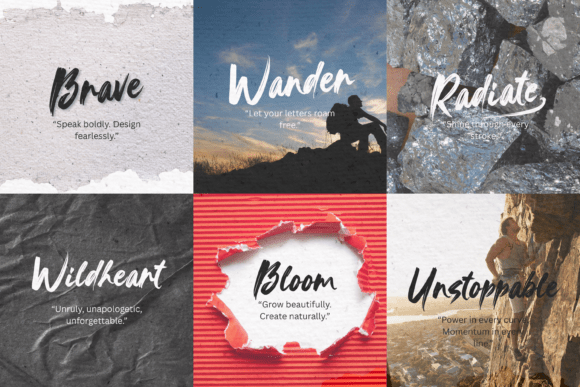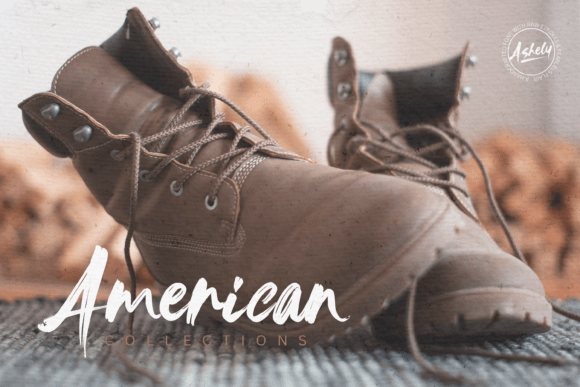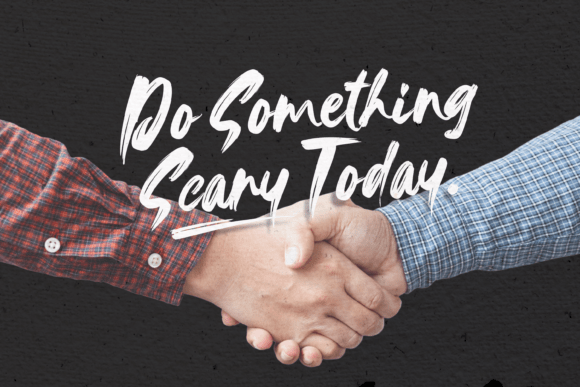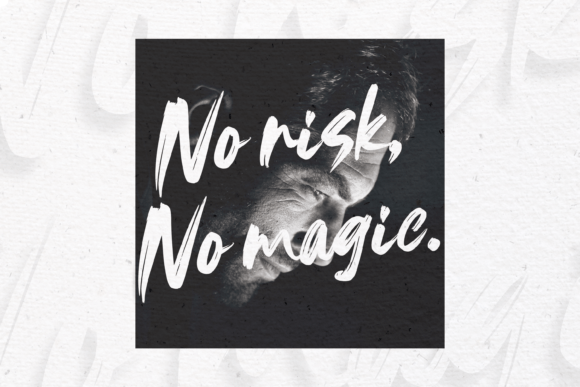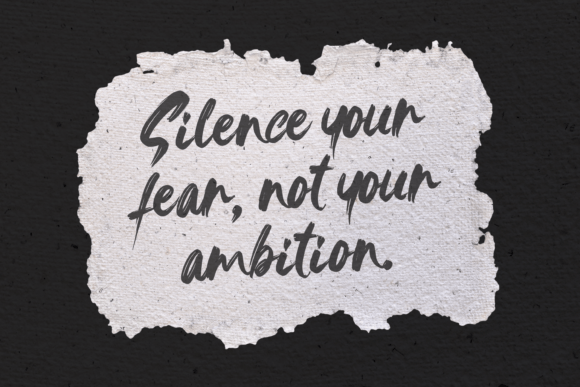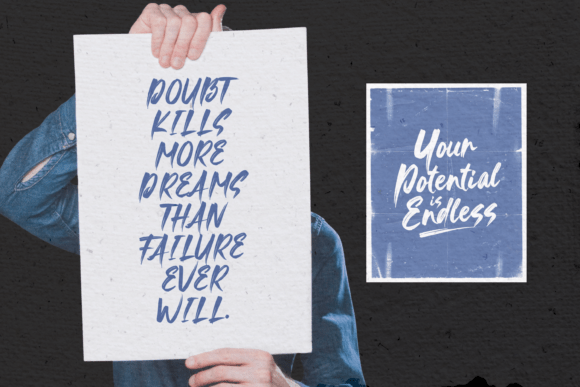
Meet Ashely: The Vibrant Brush Script Font That’s Stealing Hearts
I’ll never forget the design struggle I faced while working on a branding project for a trendy boutique. My client wanted a font that exuded personality, charm, and a dash of playfulness. I scoured the internet, tried countless fonts, but nothing seemed to fit the bill. That was until I stumbled upon Ashely, a vibrant brush script font that instantly caught my attention. In this article, I’ll share my experience with Ashely, its features, and how to make the most of this stunning font.
First Impressions: What I Love About Ashely
Ashely is more than just a font – it’s an experience. Here are a few things that I absolutely love about it:
• ✨ Natural Texture: Ashely’s hand-painted strokes give it a unique, organic feel that adds character to any design.
• ✅ Effortless Style: This font oozes confidence and style, making it perfect for designs that need a bold, eye-catching touch.
• 💃 Versatility: From bold branding and product packaging to social media graphics, posters, or merchandise, Ashely is an incredibly versatile font.
The Honest Review: A Few Quirks to Consider
While Ashely is an amazing font, it’s not without its limitations. Here are a few things to keep in mind:
• 🤔 Legibility at Small Sizes: Ashely can be a bit tricky to read at very small font sizes. It’s best used at larger sizes where its unique character can shine.
• ⚠️ Overuse: Ashely’s bold personality can quickly become overwhelming if overused. Balance is key when incorporating this font into your design.
The Story Behind Ashely: Designer Inspiration
Ashely’s story begins with a passion for hand-painted typography. Its designer, inspired by the works of street artists and calligraphers, sought to create a font that captured the essence of free-spirited creativity. With Ashely, they aimed to craft a font that would bring a sense of motion and personality to any design.
What type of designs is Ashely best suited for? Ashely is perfect for bold branding, product packaging, social media graphics, posters, merchandise, and any design that requires a touch of personality and charm.
Is Ashely available in different weights or styles? Ashely comes in a single weight, but its OpenType features and glyphs offer a range of stylistic options to add variety to your designs.
Ashely is more than just a font – it’s a design statement. With its unique blend of natural texture, effortless style, and versatility, it’s the perfect addition to any design project. So go ahead, let your creativity flow with Ashely, and watch your designs come alive with boldness, freedom, and flair!